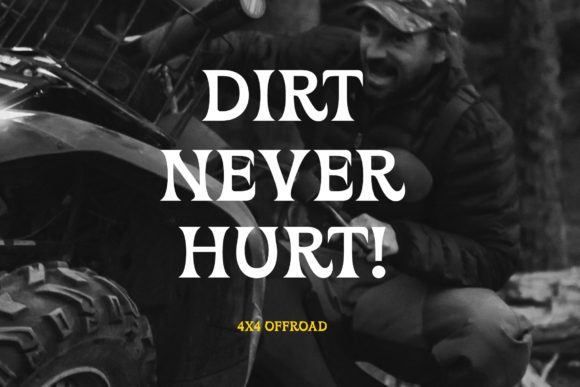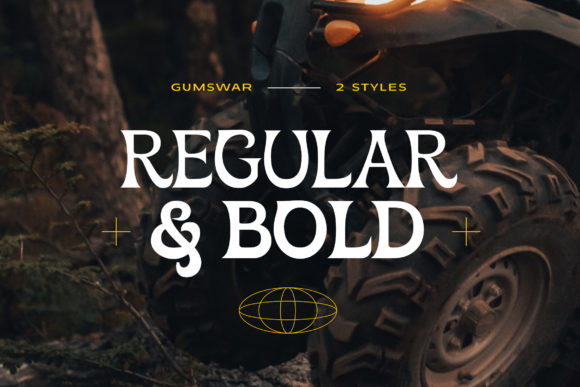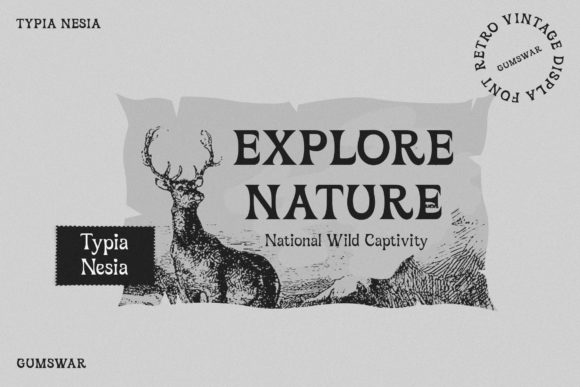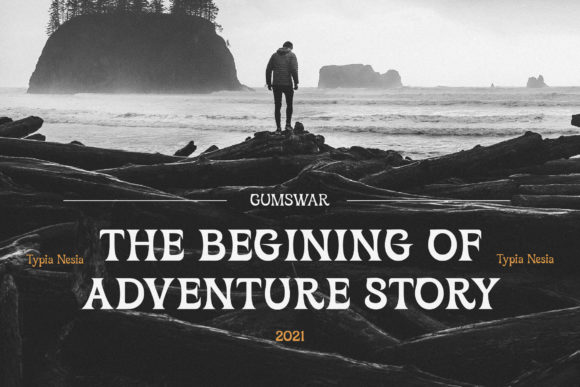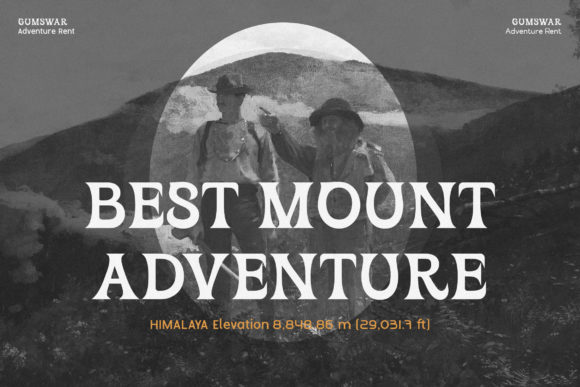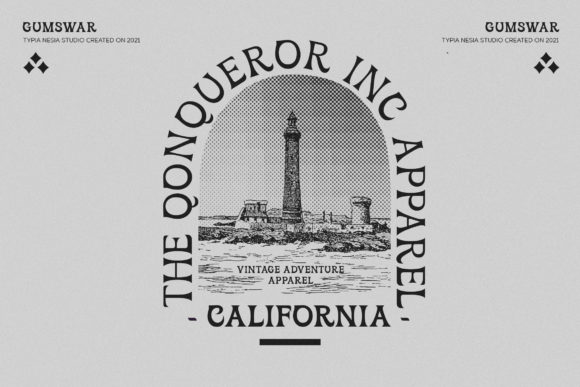
Gumswar Font: The Ultimate Retro Display Font for Your Designs
Are you looking for a font that can add a touch of retro charm to your designs? Look no further than Gumswar Font! This cool and stylish display font is perfect for designers and crafters who want to add a dash of personality to their work. In this article, we’ll dive into the world of Gumswar Font and explore its features, benefits, and uses.
What is Gumswar Font?
Gumswar Font is a retro-styled display font that exudes confidence, strength, and dynamism. Its unique design makes it perfect for headlines, titles, and short texts that require a bold and eye-catching font. The font’s retro vibe is reminiscent of classic posters, billboards, and advertisements from the past, making it an excellent choice for designers who want to add a touch of nostalgia to their work.
Key Features of Gumswar Font
- Retro Style: Gumswar Font boasts a distinctive retro style that’s sure to turn heads. Its classic design makes it perfect for projects that require a vintage or nostalgic feel.
- Strong and Confident: The font’s bold and dynamic design makes it perfect for headlines, titles, and short texts that require a strong and confident font.
- Highly Readable: Despite its bold design, Gumswar Font is highly readable, making it perfect for use in a variety of design projects, from posters and billboards to digital screens and social media.
- Multilingual Support: Gumswar Font supports multiple languages, making it an excellent choice for designers who work on international projects.
Benefits of Using Gumswar Font
So, why should you use Gumswar Font in your designs? Here are just a few benefits of this amazing font:
- Adds Character to Your Designs: Gumswar Font can add tons of stylish character to your designs, making them stand out from the crowd.
- Perfect for Headlines and Titles: The font’s bold and dynamic design makes it perfect for headlines, titles, and short texts that require a strong and eye-catching font.
- Versatile: Gumswar Font can be used in a variety of design projects, from posters and billboards to digital screens and social media.
- Easy to Read: Despite its bold design, Gumswar Font is highly readable, making it perfect for use in a variety of design projects.
Use Cases for Gumswar Font
So, what can you use Gumswar Font for? Here are just a few ideas to get you started:
- Posters and Billboards: Gumswar Font is perfect for creating eye-catching posters and billboards that require a bold and dynamic font.
- Digital Screens: The font’s highly readable design makes it perfect for use in digital screens, from websites and social media to video games and mobile apps.
- Logos and Branding: Gumswar Font can be used to create unique and memorable logos and branding materials that require a bold and dynamic font.
- Packaging Design: The font’s retro style makes it perfect for use in packaging design, from product labels to packaging materials.
Tips for Using Gumswar Font
Here are a few tips for using Gumswar Font in your designs:
- Use it Sparingly: Gumswar Font is a bold and dynamic font, so use it sparingly to avoid overwhelming your designs.
- Pair it with Other Fonts: The font’s bold design makes it perfect for pairing with other fonts to create a unique and visually appealing design.
- Experiment with Colors: Gumswar Font looks great in a variety of colors, so experiment with different colors to find the one that works best for your design.
In conclusion, Gumswar Font is a cool and retro-styled display font that’s perfect for designers and crafters who want to add a touch of personality to their work. Its bold and dynamic design makes it perfect for headlines, titles, and short texts that require a strong and eye-catching font. With its highly readable design, multilingual support, and versatility, Gumswar Font is an excellent choice for a wide range of design projects. So why not give it a try and see how it can add tons of stylish character to your designs?